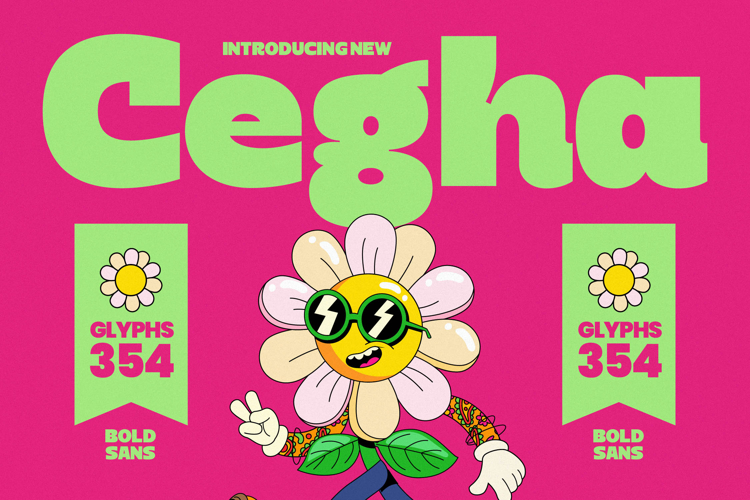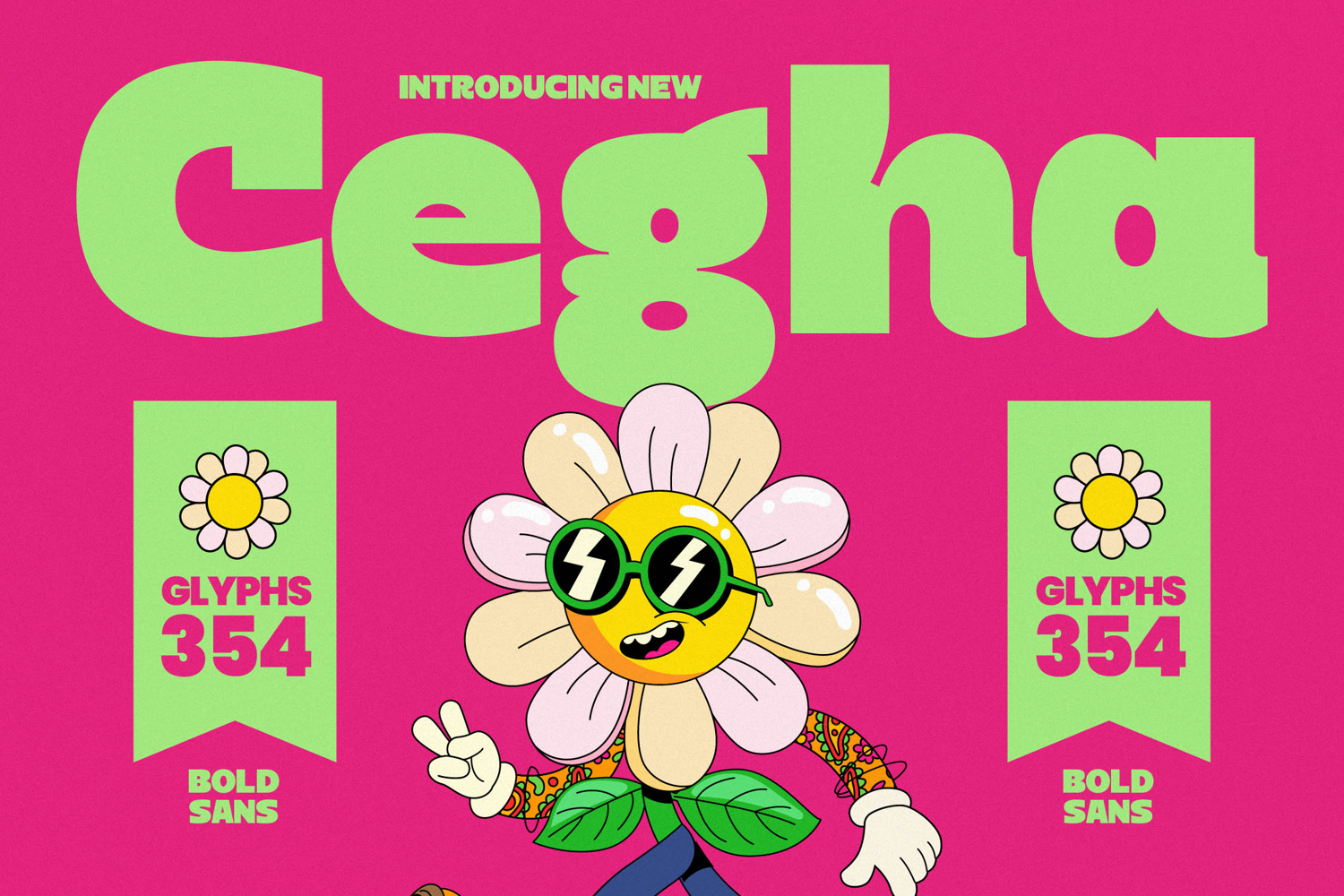
Cegha - Groovy Bold Sans Display Font
Make an unforgettable statement with Cegha - Groovy Bold Sans Display Font, a contemporary typeface designed to capture attention effortlessly. This bold sans serif font radiates a friendly, yet confident presence with its distinctive rounded terminals and chunky letterforms. Perfect for conveying a sense of playful modernity and approachable strength, Cegha - Groovy Bold Sans Display Font brings a fresh, vibrant energy to any design project, ensuring your message stands out with impactful design.
Unlock boundless creative possibilities with the inherent versatility of Cegha - Groovy Bold Sans Display Font . Its robust structure makes it an ideal choice for impactful branding, eye-catching headlines, and dynamic packaging that demands to be noticed. Whether crafting logos, editorial designs, or engaging digital content, this font delivers maximum readability and a strong visual personality, elevating your creative output to new heights. It's truly perfect for youthful campaigns and bold advertising.